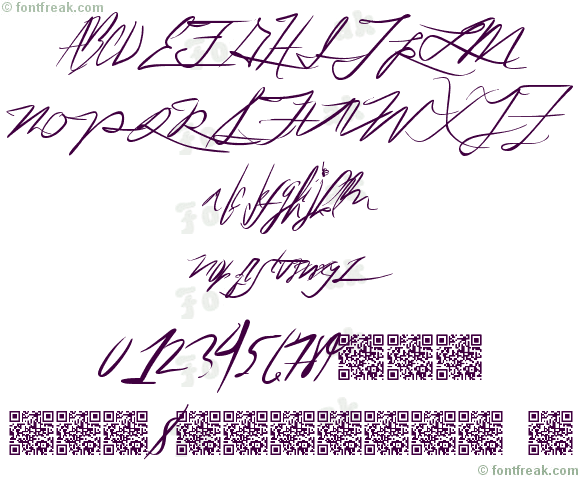
FiftyHours
FiftyHours by Xerographer Fonts is a captivating script font that embodies an elegant and fluid design. This font features a dynamic stroke weight, offering a beautiful contrast between thick and thin lines that adds depth to any text. The graceful curves and flowing connections between letters create a sense of movement, making it visually appealing for a variety of applications. The spacing is well-balanced, ensuring readability while maintaining its artistic flair.
This font is particularly suited for use in wedding invitations, where its romantic style can enhance the overall aesthetic. Additionally, it works wonderfully for movie posters, where its distinctive look can draw attention and convey a sense of drama. FiftyHours is also ideal for restaurant menus, adding a touch of sophistication that complements fine dining experiences. Content creators will find it a valuable asset for branding projects, as it embodies a unique personality that can set a brand apart.
What sets FiftyHours apart is its ability to combine elegance with an approachable style, making it perfect for both formal and casual contexts. Its artistic nature resonates with a diverse audience, allowing for endless creative possibilities. For those seeking a unique typeface that stands out without overwhelming, the FiftyHours font free download is an excellent choice that will enhance any design project.